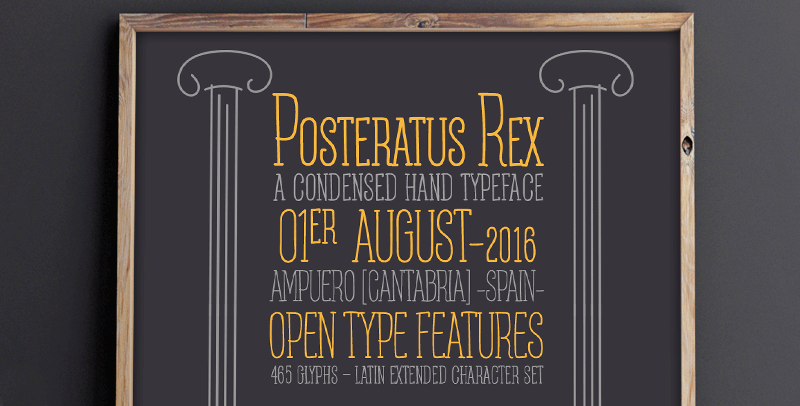
Font name: | Posteratus Rex |
Posteratus Rex is a very condensed typeface handwritten with small slab-serif and lowercase letters in small caps, the font has a large high contrast between the upper and lower case. It has a set of numbers in small caps. ================= • Free for Personal Use Only. • If you want the commercial license is available at: http://defharo.com/fonts/posteratus-rex-font/ |